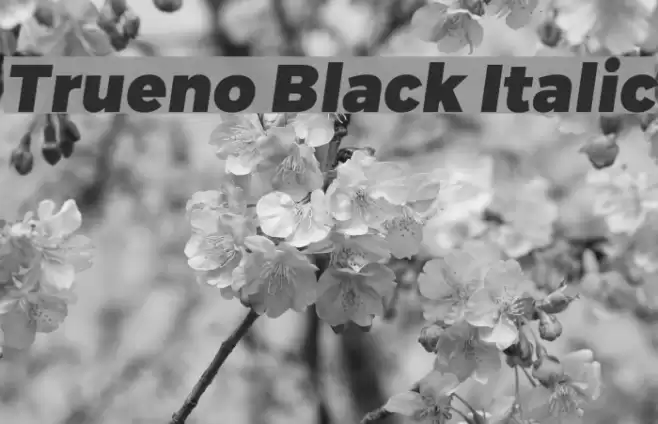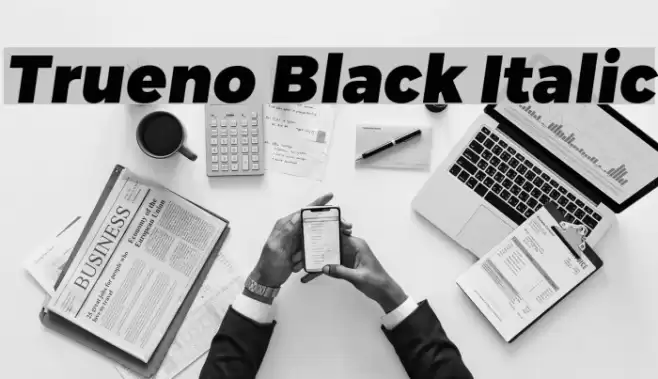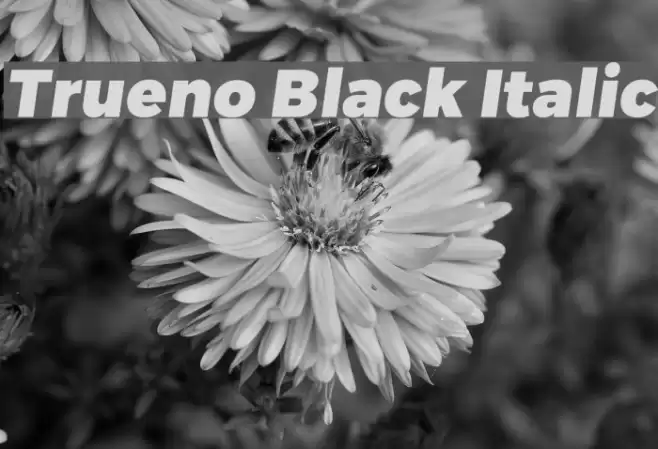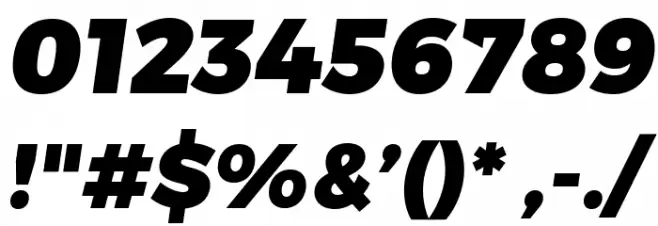
Trueno Black Italic Font
Trueno Black Italic Description
This font exhibits a bold and assertive style with a strong presence. It features thick strokes and a slightly condensed form, giving it a powerful and modern appearance. The italic slant adds a dynamic and forward-moving feel, making it suitable for attention-grabbing headlines and impactful designs. The characters are well-defined with consistent stroke widths, ensuring readability even at smaller sizes. The font includes a full set of uppercase and lowercase letters, numerals, and a variety of special characters, making it versatile for various design needs.
A bold, italic font with a modern and dynamic style from Uncategorized fonts.